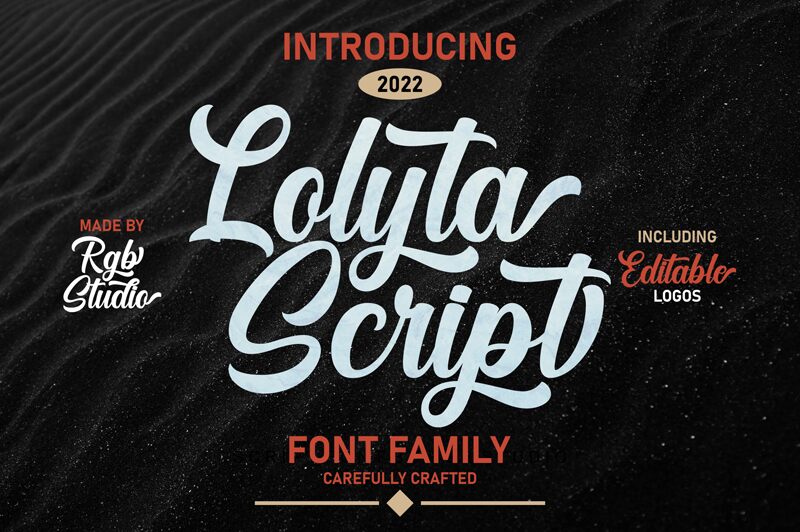
Lolyta Script, a captivating calligraphy font from the creative minds at RGB Studio, is a true feast for the eyes. This elegant and flowing script evokes a sense of timeless grace, with its sinuous strokes and effortless flourishes. The font's distinctive character shines through in its whimsical, almost playful aesthetic, making it an ideal choice for wedding invitations, event branding, and any design project seeking a touch of refined sophistication.
Lolyta Script's versatility extends beyond its aesthetics, as its expansive letterforms lend themselves beautifully to a range of applications, from luxurious packaging to eye-catching headlines. Whether used alone or in harmonious pairings, this font's unique personality is sure to captivate and inspire, elevating any visual narrative with its alluring calligraphic charm.